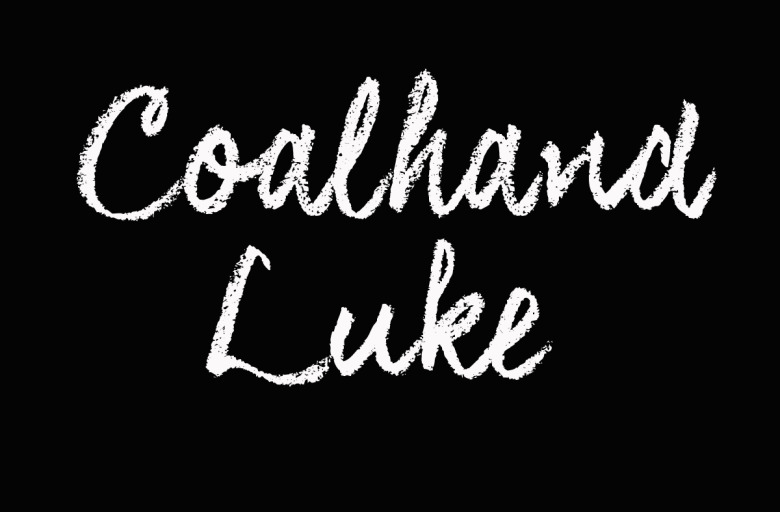
Coalhand Luke Font
Coalhand Luke is a high quality Handwritten font that is designed by JOEBOB graphics and is available for free download and personal use. The free version provides all uppercase and lowercase letters and a few special characters too.
Coalhand Luke Handwritten Font